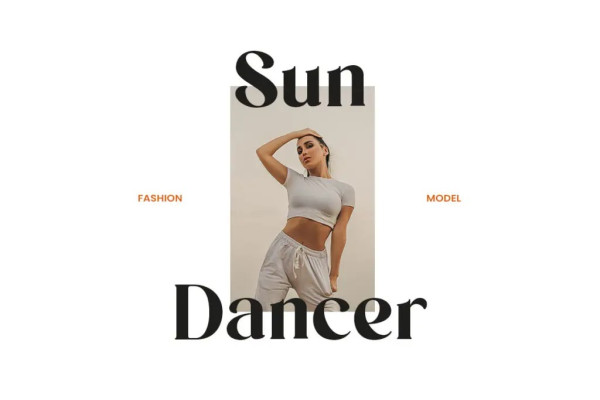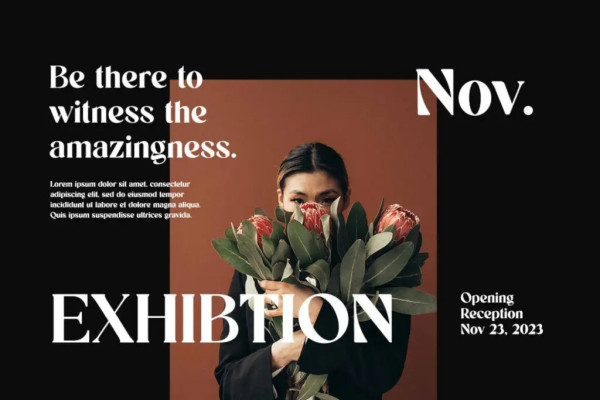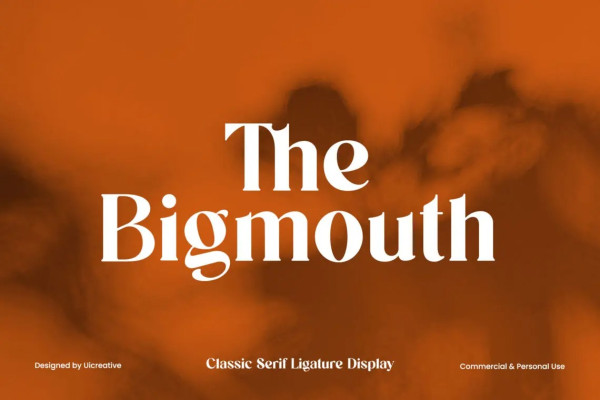
The Bigmouth Font
The Bigmouth Font – Classic Serif Font. The modern display font feels beautiful classy, elegant, and stylish. This font is ideally suited for a wide variety of projects, such as signature, stationery, logo, wedding, typography quotes, magazine or book covers, website headers, branding, and more. Also, fashion-related branding or editorial design displays both masculine and feminine qualities.